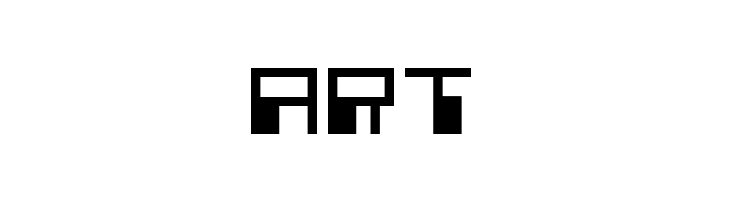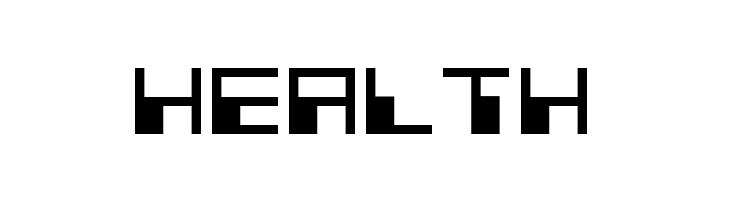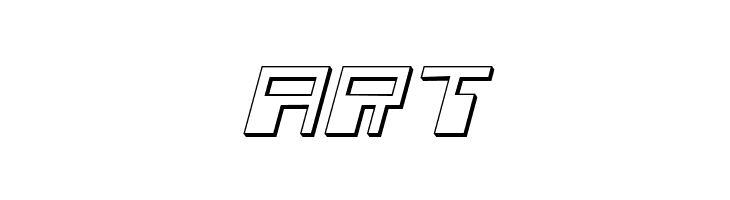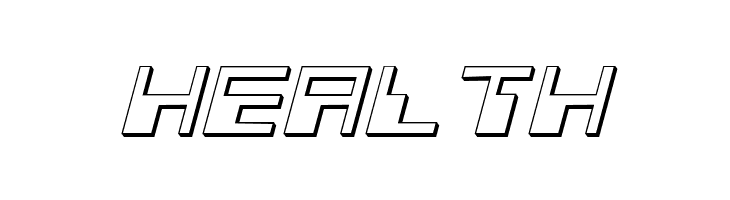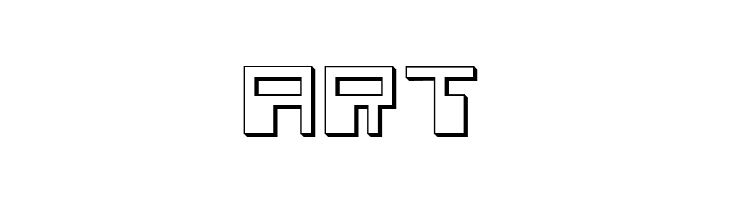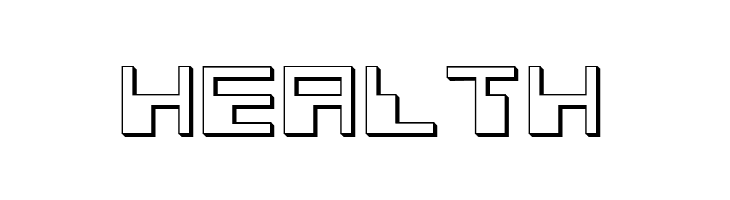
• Phaser Bank
A bold, geometric font with a futuristic, digital aesthetic.
• Phaser Bank 3D
A bold, 3D outline font with a futuristic and geometric style.
• Phaser Bank 3D Italic
A 3D italic font with geometric outlines and a modern, technical style.
• Phaser Bank Bold
A bold, geometric font with a digital and futuristic style.
• Phaser Bank Bold Italic
A bold, italicized font with a futuristic and dynamic design.
• Phaser Bank Condensed
A bold, geometric font with a futuristic, digital style.
• Phaser Bank Condensed Italic
A futuristic, angular, and condensed italic font with bold strokes.
• Phaser Bank Expanded
A bold, geometric font with a futuristic, digital aesthetic and expanded width.
• Phaser Bank Expanded Italic
A bold, futuristic italic font with sharp angles and expanded width.
• Phaser Bank Italic
A futuristic, angular italic font with a bold and dynamic style.